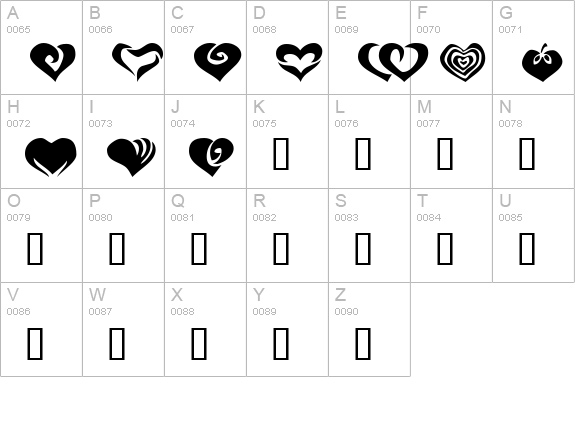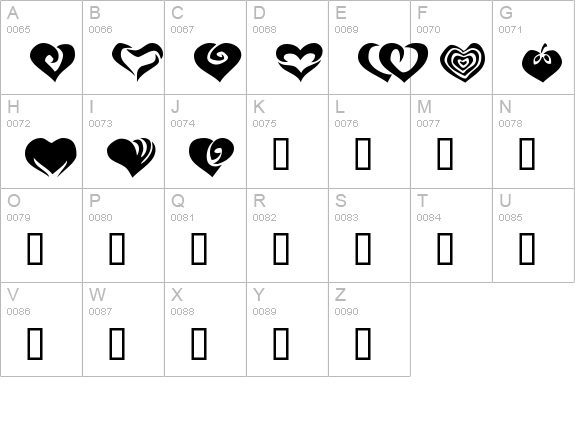
KR Valentines 2006 Two Font Details
The KR Valentines 2006 Two font is a whimsical and romantic typeface perfect for your Valentine's Day projects. With its playful and elegant design, this font is sure to add a touch of love to any design. Whether you're creating greeting cards, invitations, or love notes, this font will set the perfect tone for your message. What's even better is that the KR Valentines 2006 Two font is available for free download at FontsMarket.com. Yes, you read that right - it's completely free! So go ahead and spread the love with this charming font that captures the essence of Valentine's Day. Download it now and let your creativity shine with this delightful typeface.